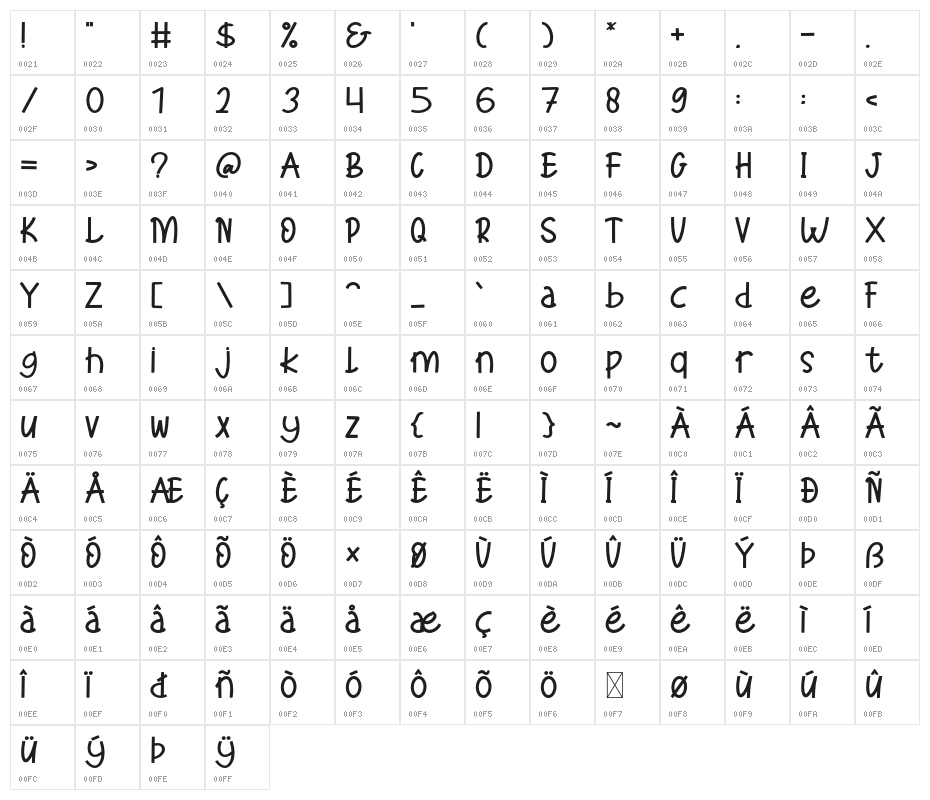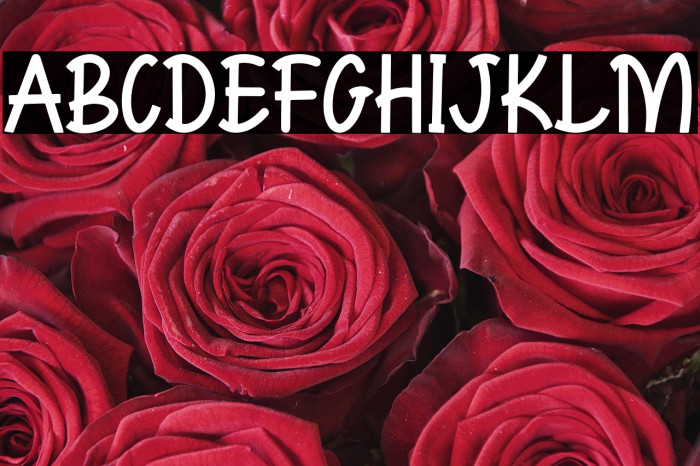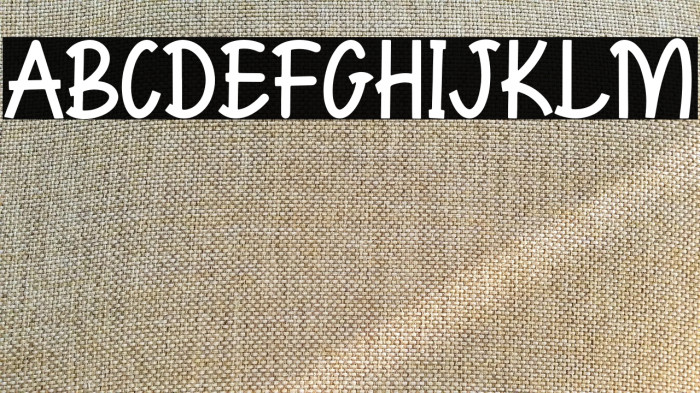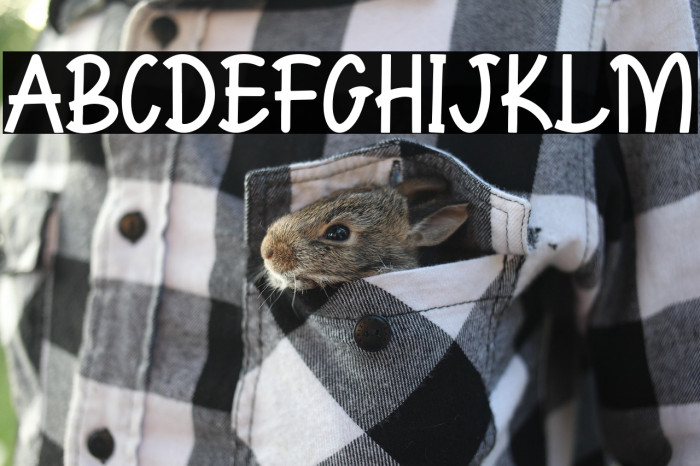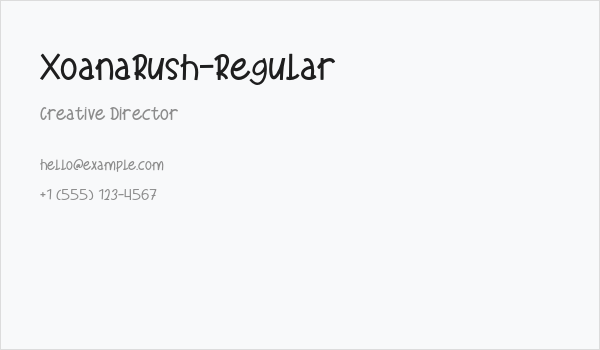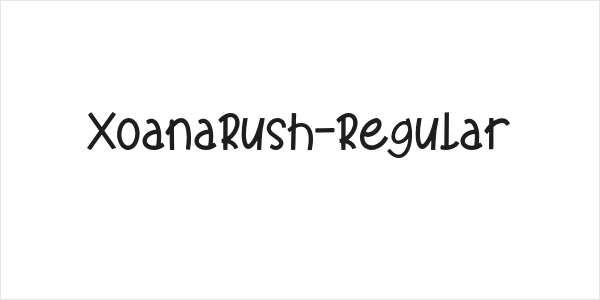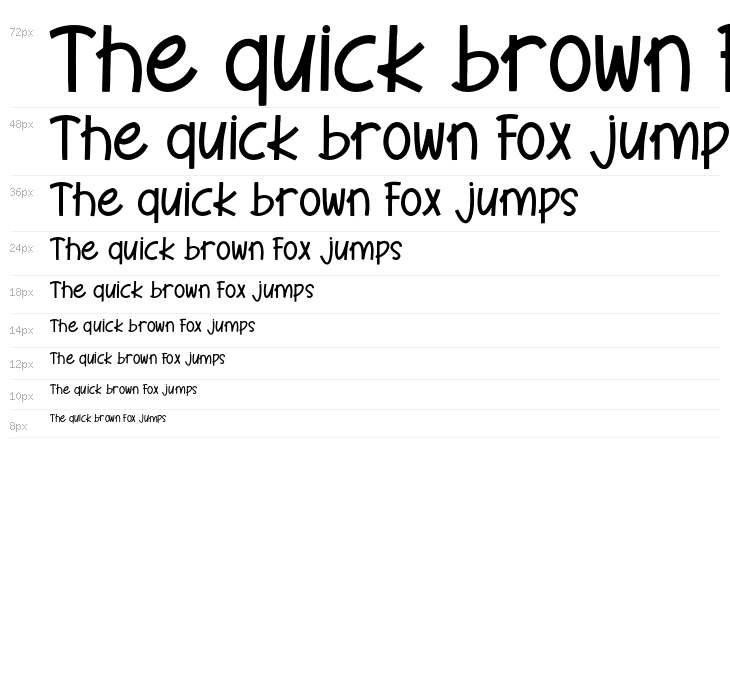
XoanaRush-Regular Font
XoanaRush-Regular Description
This playful and energetic font features a handwritten style with a casual and friendly appearance. The letters are slightly irregular, giving it a personal touch that mimics natural handwriting. The strokes are bold and consistent, with a medium contrast that adds to its legibility. The characters are well-spaced, providing a balanced and harmonious look. This font includes a full set of uppercase and lowercase letters, numbers, and a variety of special characters, making it versatile for different uses.
| Use Case | Logos, Headlines, Informal Texts |
| Proposed Projects | Ideal for greeting cards, children's books, playful branding, and casual invitations. |